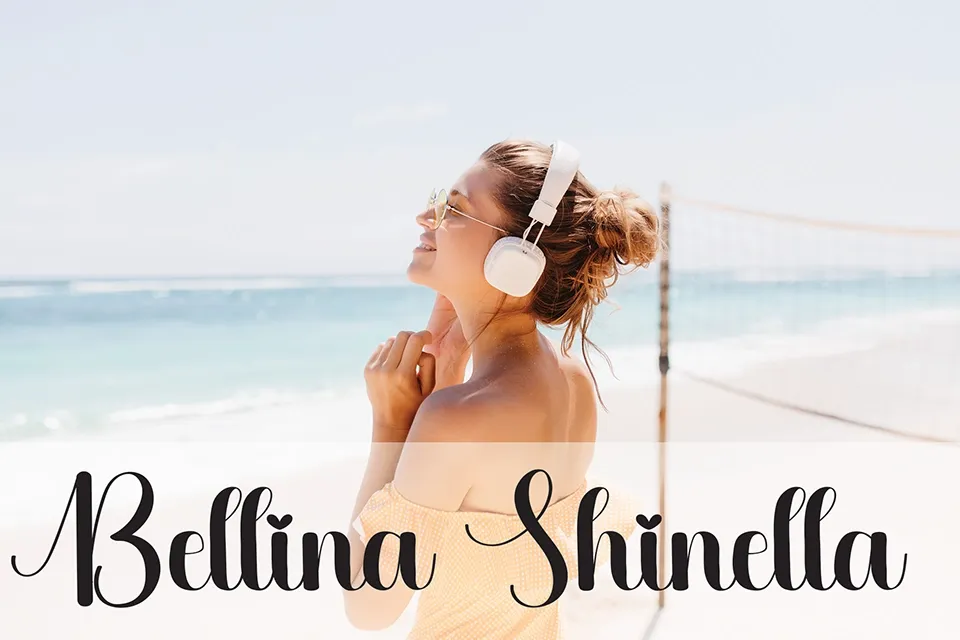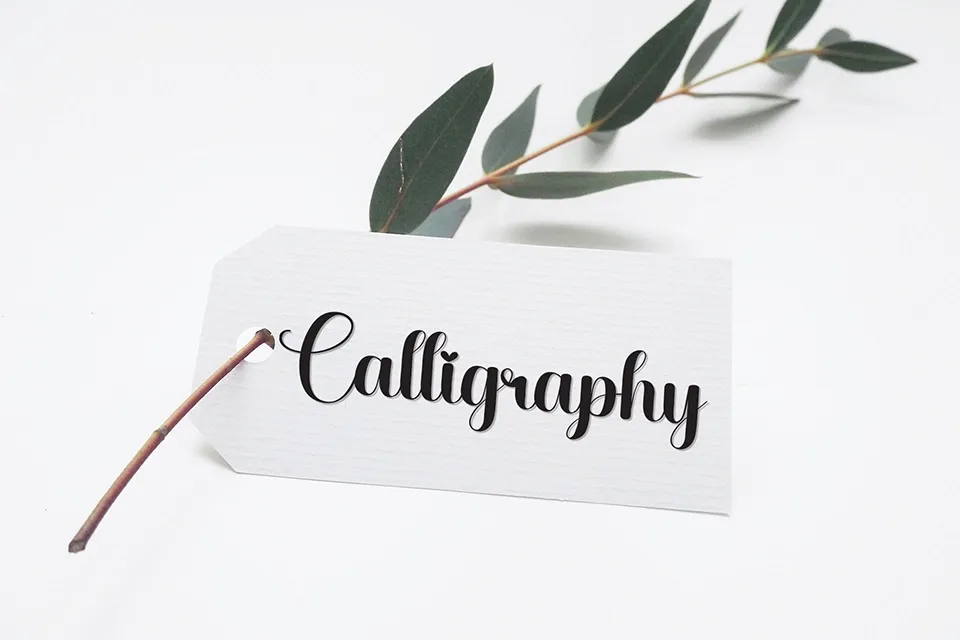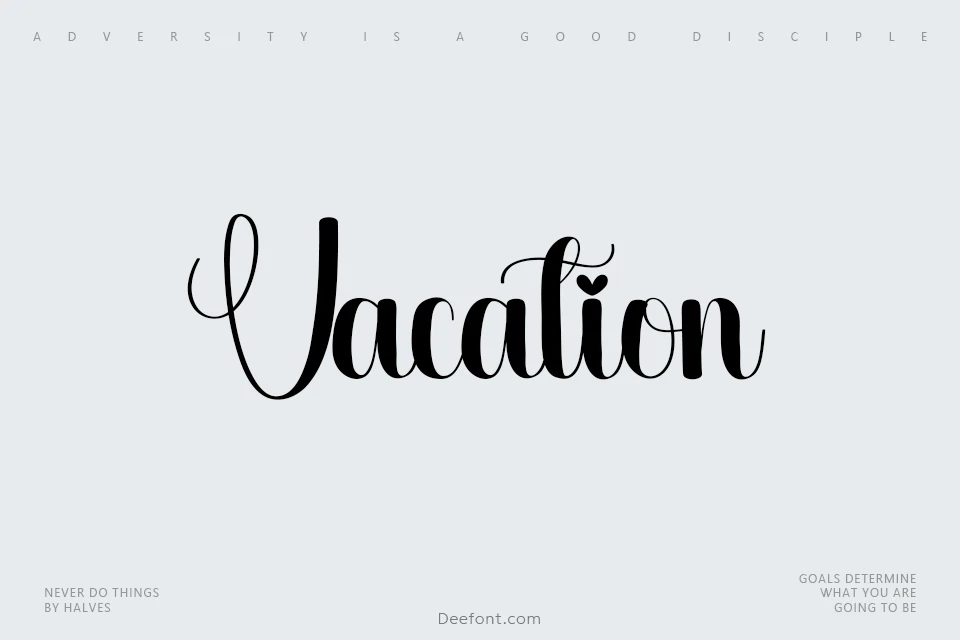
Vacation Font
Vacation Font is a fashionable script font, neatly crafted and highly detailed. Its organic handwritten style brings a charming, elegant touch to any project, making it a wonderful asset for enhancing invitations, branding, social media graphics, and more. Whether for personal or demo use, Vacation adds a sophisticated flair to your font library.